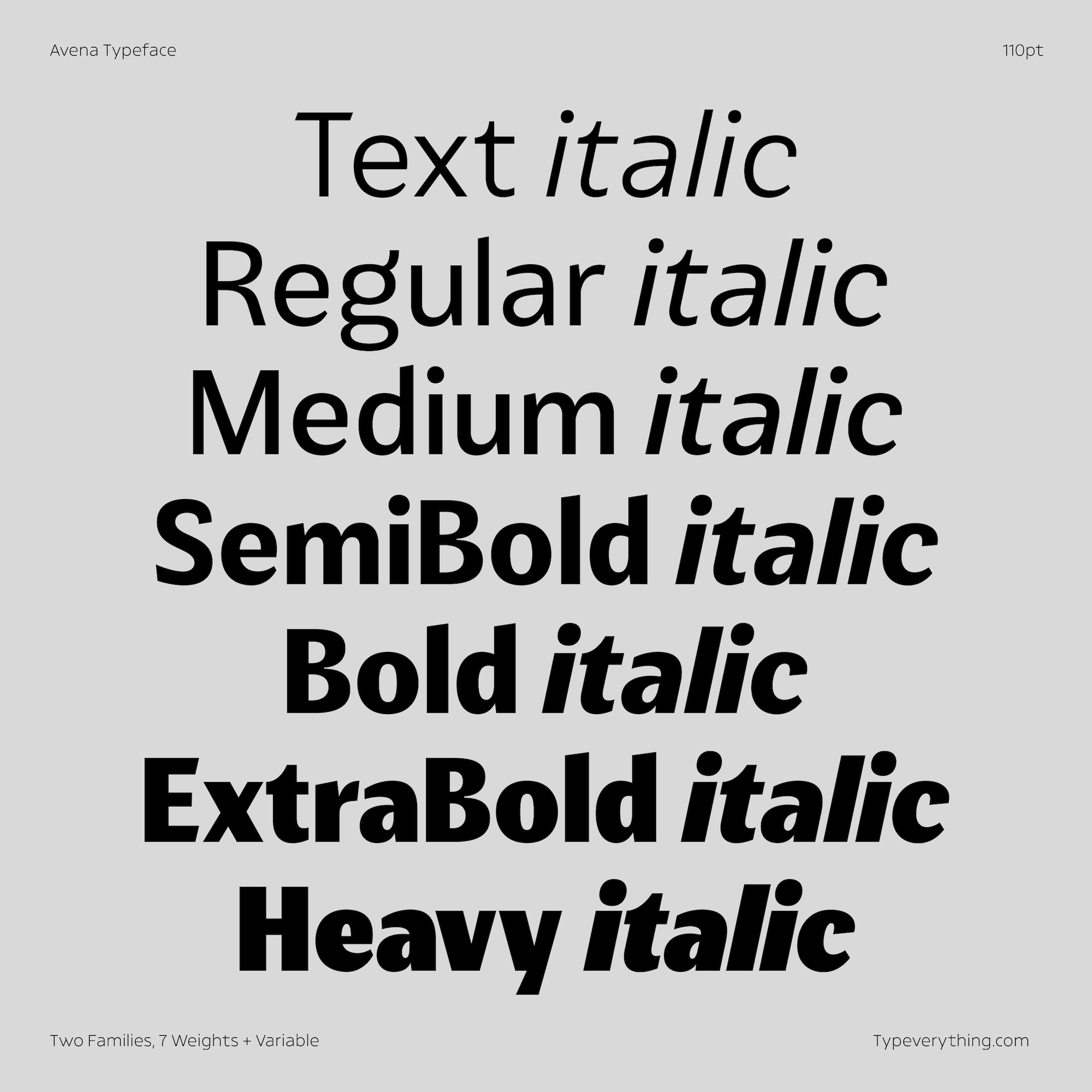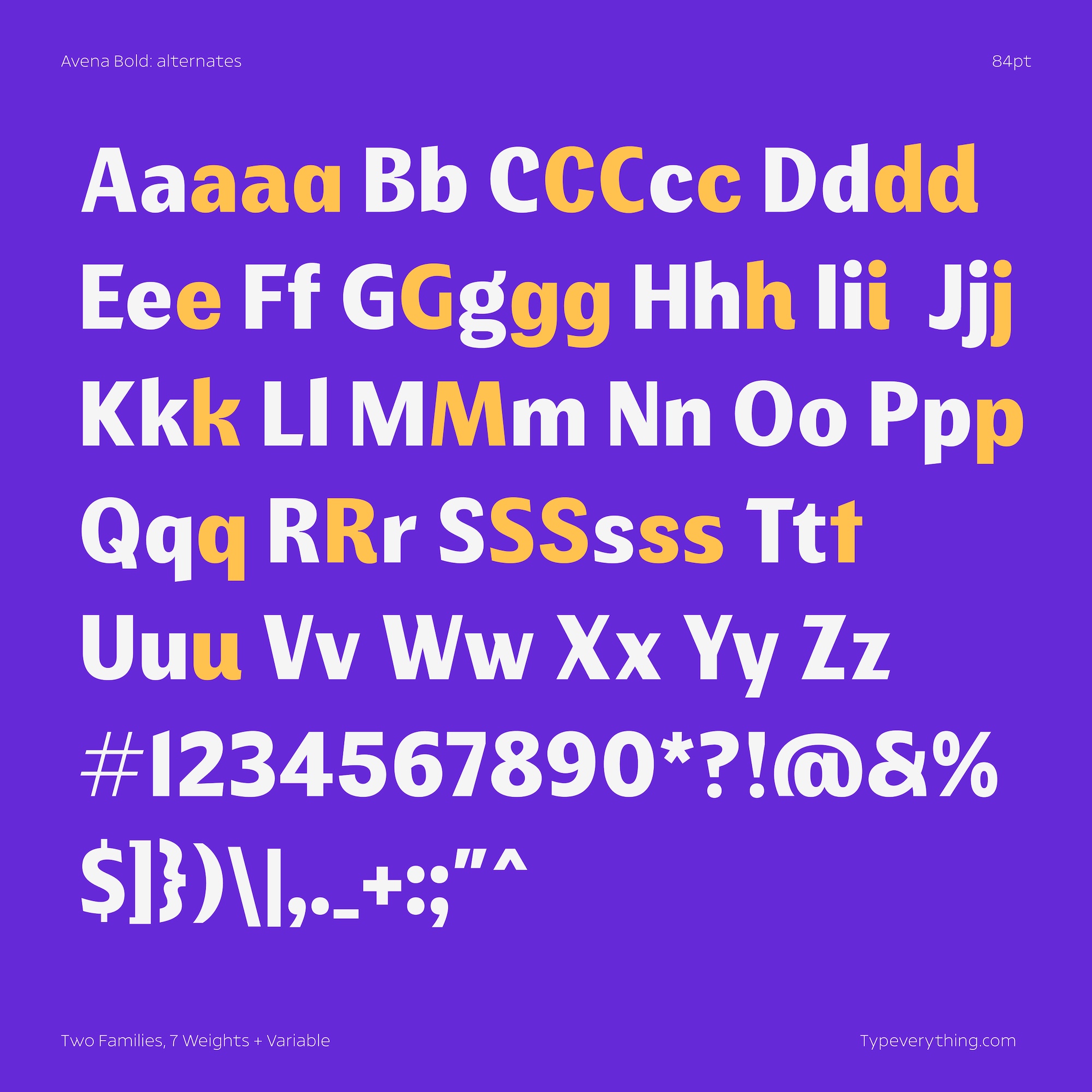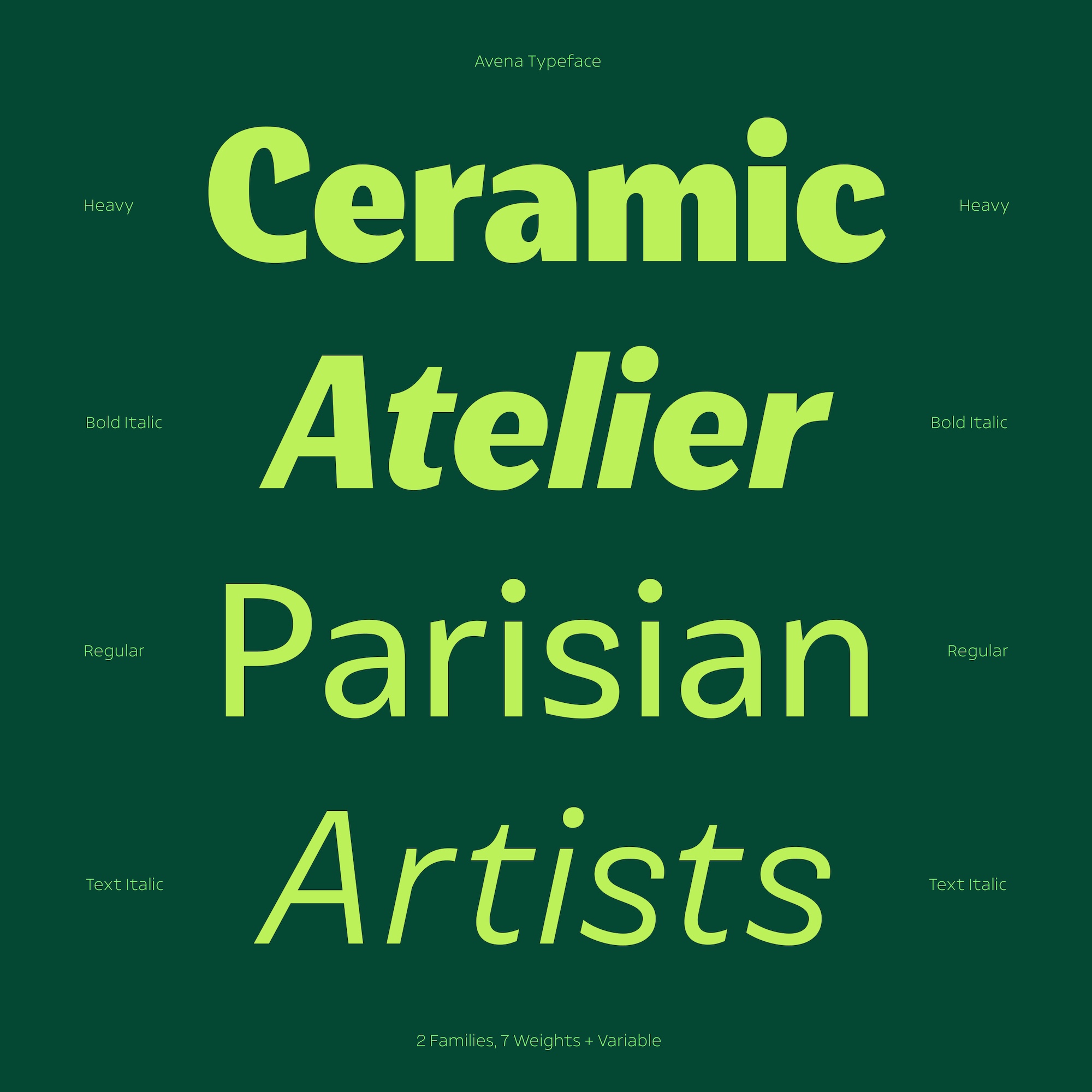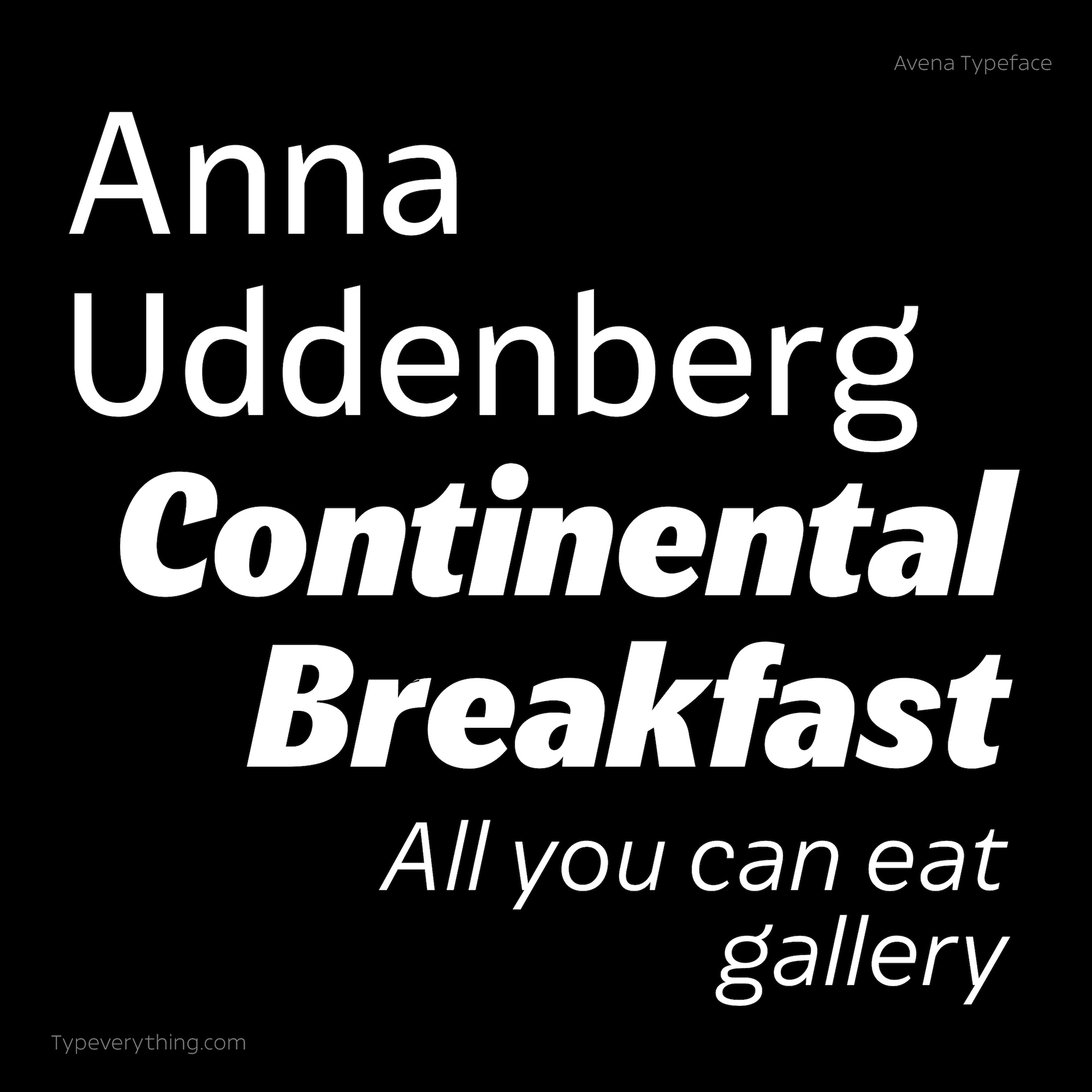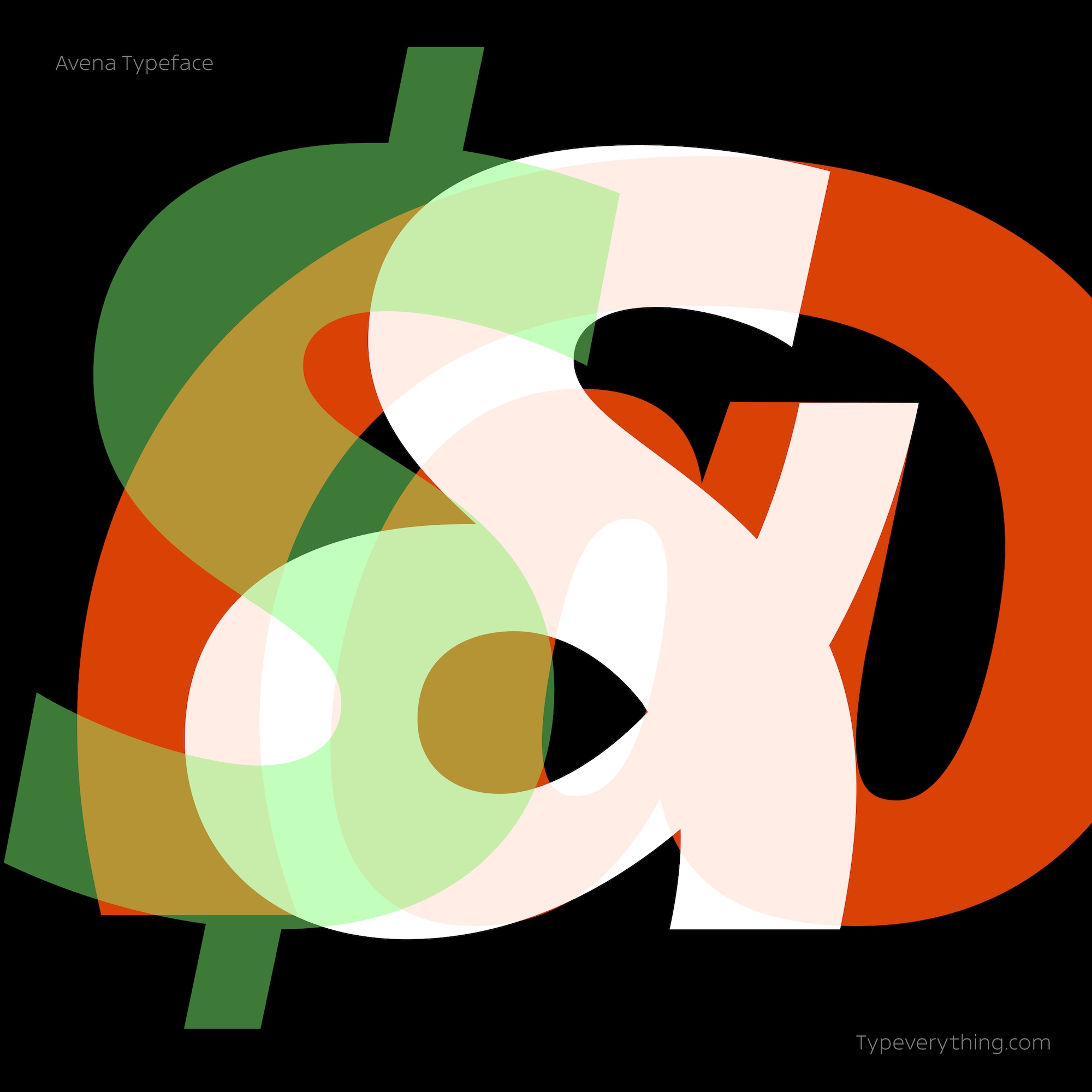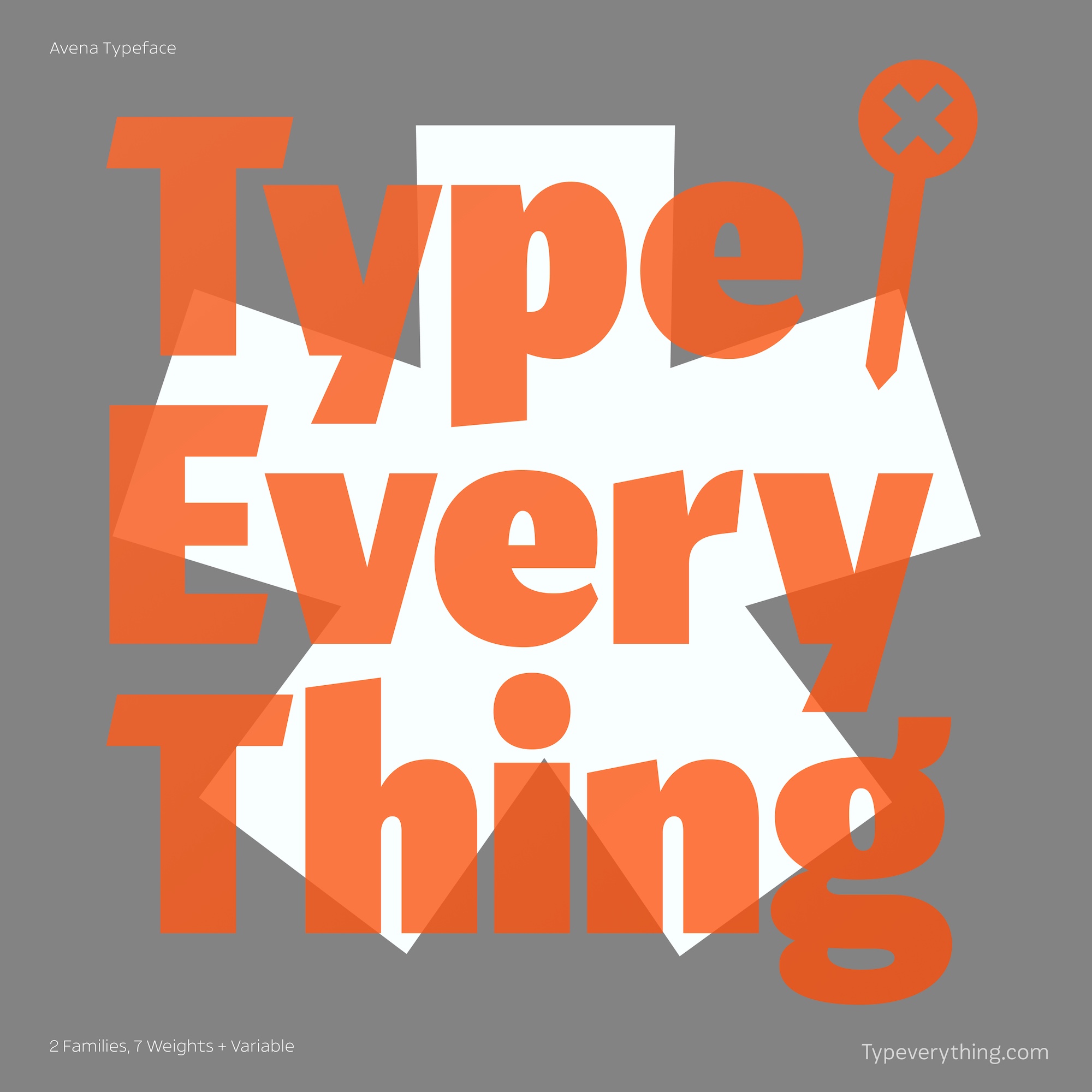
Avena Typeface by Typeverything
Avena is a contemporary humanist sans-serif that blends elegance with a friendly, approachable personality. Drawing inspiration from classic humanist proportions, it brings a modern touch to traditional letterforms, making it ideal for branding and editorial projects. Featuring 7 weights and two distinct families—Upright and Italic—Avena offers extensive alternate characters to empower users with the flexibility to customize their designs. Its versatile, legible style, supported by Latin+ language coverage, ensures Avena works seamlessly across a wide range of creative applications.